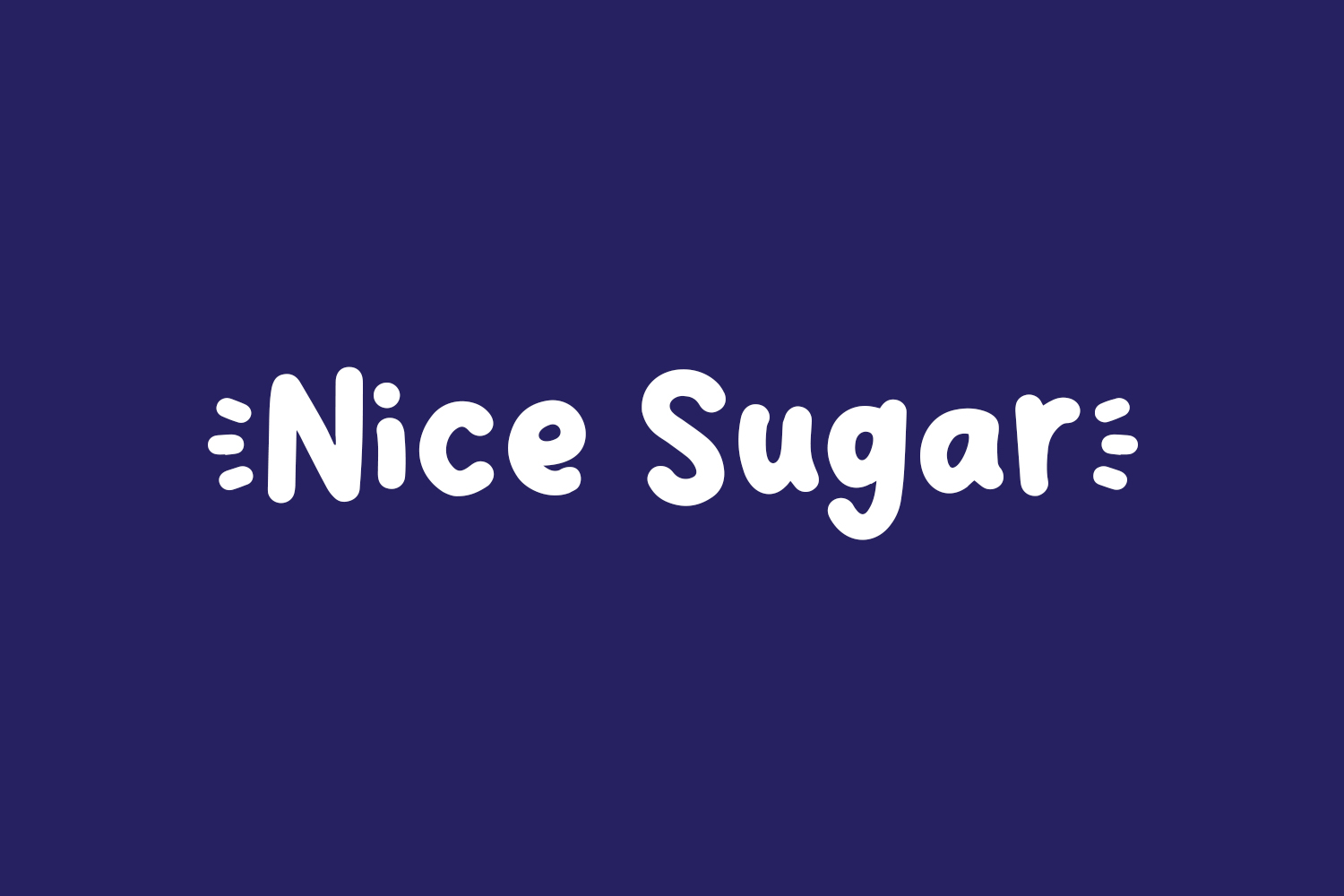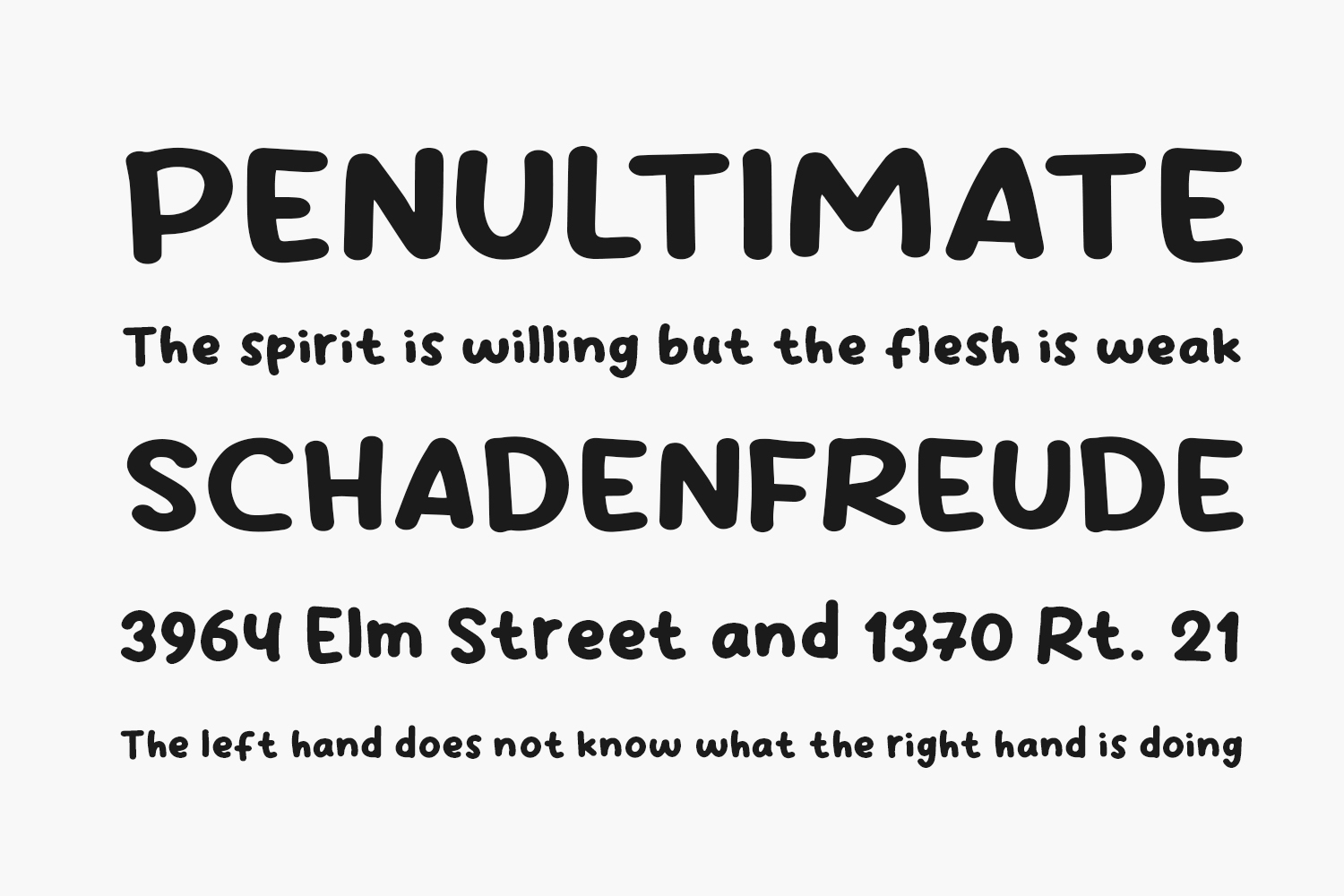
Nice Sugar Free Font is a modern and fancy display font perfect for posters, logos, magazines, book covers, banners, and many more! Get this cute display font, and use it to create lovely designs. Nice Sugar Free Font is free for personal use only. Please purchase the full version for commercial use.